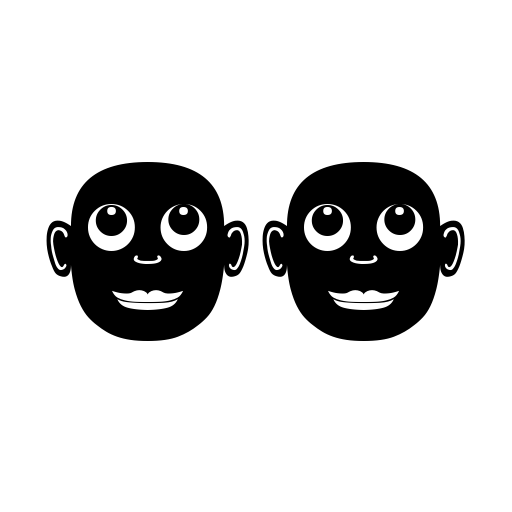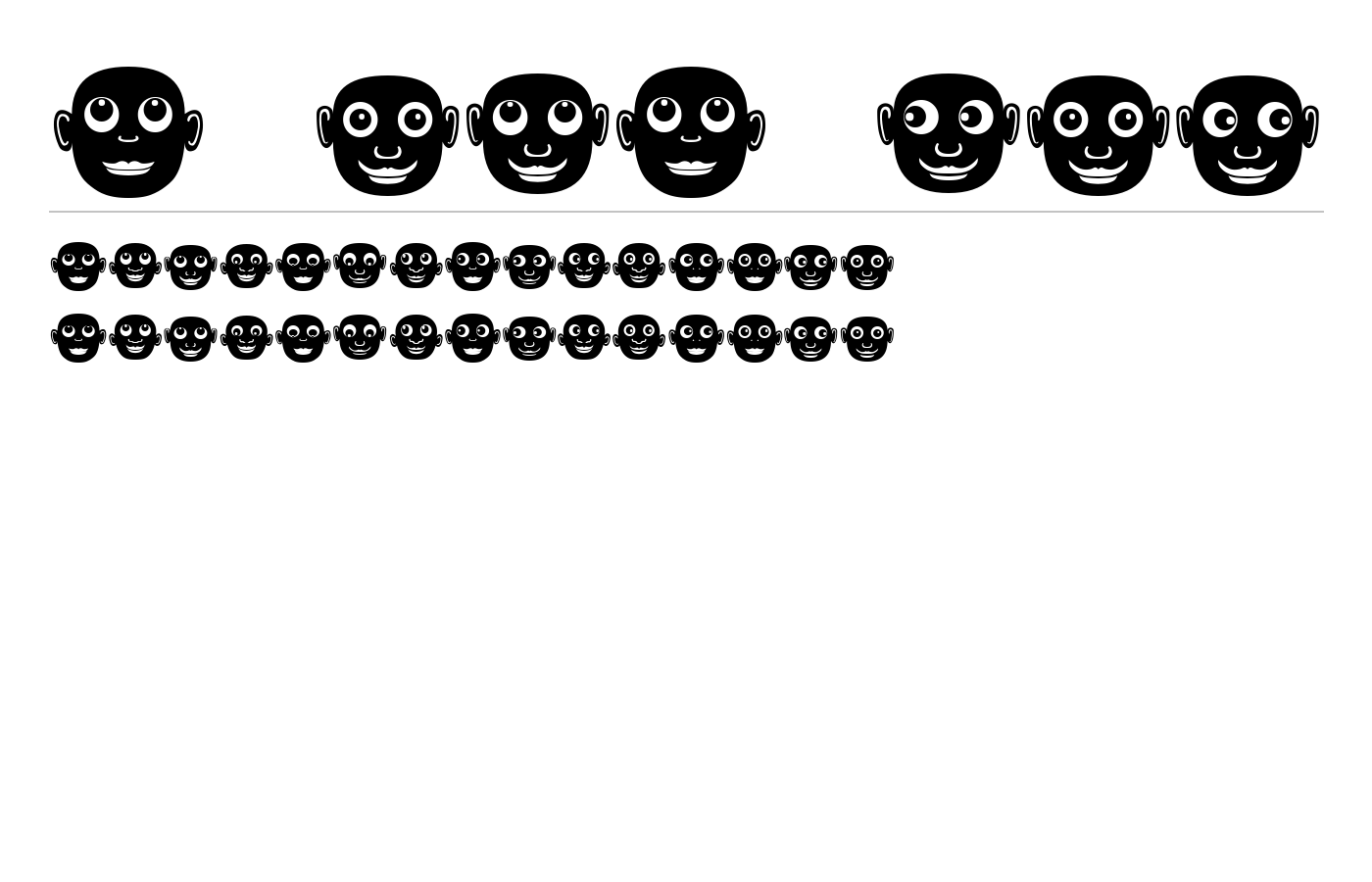
Avocation Font is a playful and bold display typeface designed entirely with smiling cartoon faces instead of traditional letterforms. Its unique and whimsical style makes it perfect for fun, creative projects or branding aimed at children and entertainment, adding a distinctive and cheerful personality where text needs to stand out. This font works best in logos, posters, or any design demanding a lighthearted and memorable visual impact.
Avocation Font
About Avocation Font
| Font family | Avocation Font |